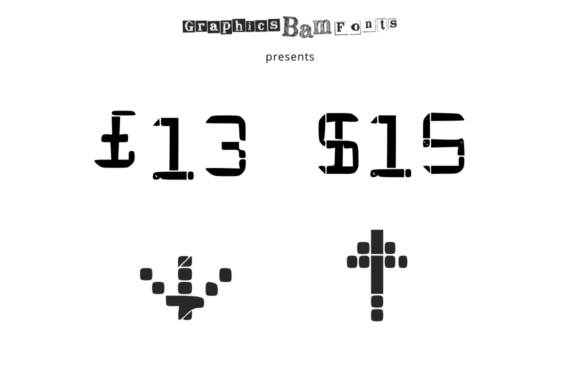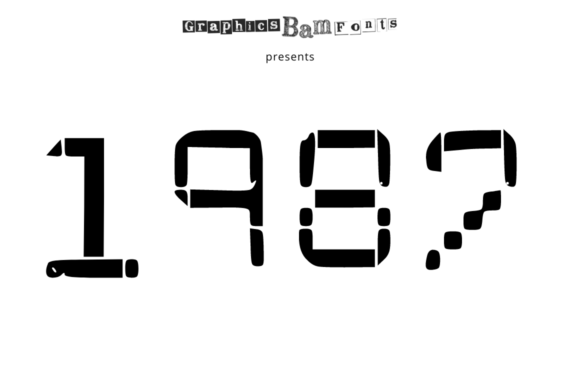
Introduction to Glitch Traveler Font Font
Fonts play a crucial role in design, and the Glitch Traveler Font font is a typeface that brings both character and versatility to any project. Whether you’re working on a branding project, a website, or a print design, the Glitch Traveler Font font offers a unique style that can elevate your work.
Glitch Travel is based upon a matrix lettering system often found on digital information boards but this one is a bit glitched up.
Key Features of Glitch Traveler Font Font
Why Choose Glitch Traveler Font Font?
The Glitch Traveler Font font is more than just a typeface – it’s a design tool that helps you communicate your message with style and clarity. Its unique character set and versatile design make it suitable for a wide range of applications, from elegant invitations to bold headlines.
With its carefully crafted letterforms and balanced proportions, the Glitch Traveler Font font ensures readability and visual appeal across all mediums.
What makes Glitch Traveler Font font special?
The Glitch Traveler Font font stands out with its unique design, exceptional readability, and versatility across various design applications.